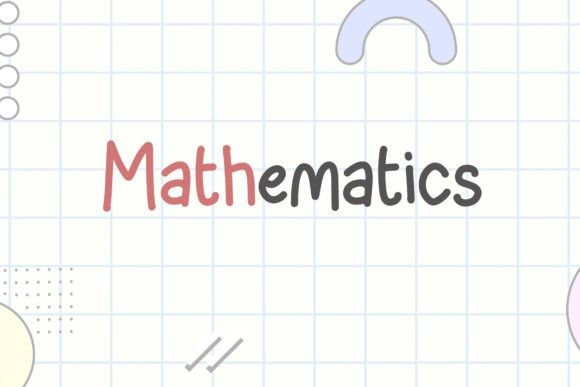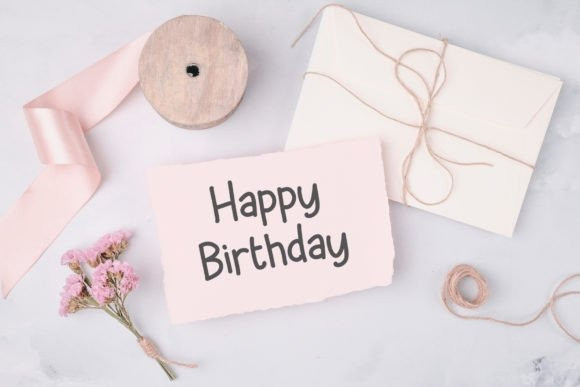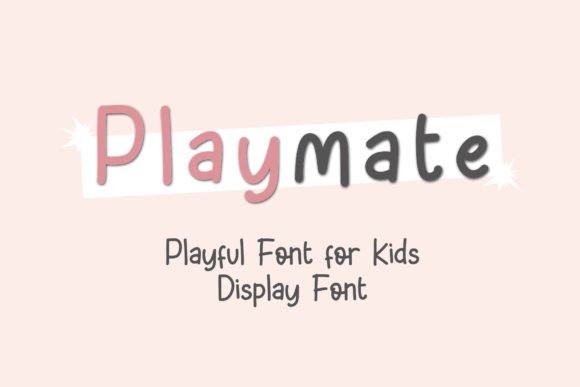
Playmate Font
Playmate Handwriting Font is a playful and cute handwritten font. This font is suitable for children, Whether you’re using it for crafts, digital design, presentations, or making greeting cards, this font has the potential to become your favorite go-to font, no matter the occasion!